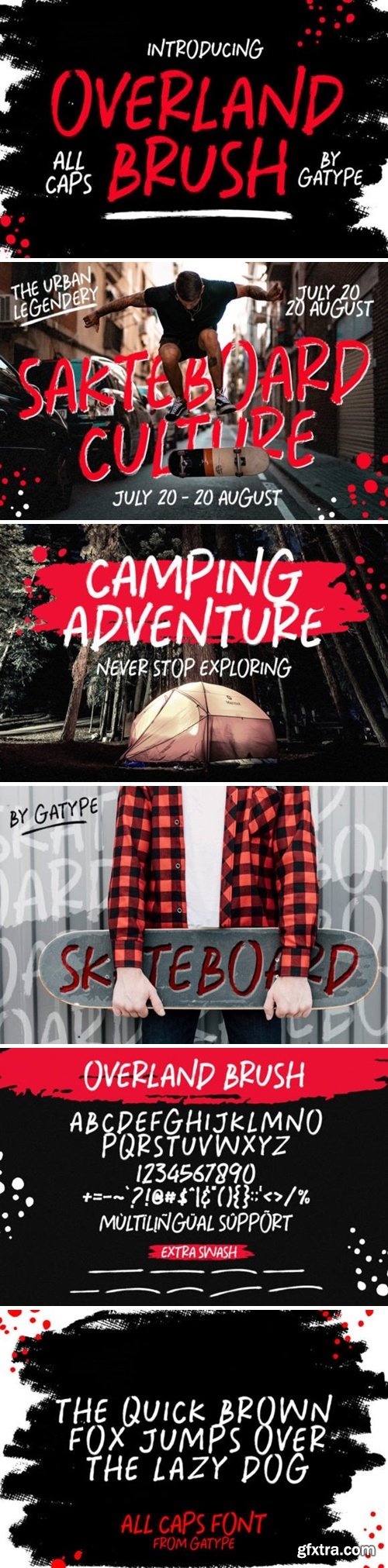
奥兰多刷字体
Overland Brush is a beautiful uppercase display brush font, designed with a modern vibe. This bold brush font is perfect for anything indie, adventurous, and hands-on. Every stroke, and curve is created to create bliss and grace. The Overland Brush is best suited for any design project, such as posters, banners, logos, book covers, album covers, quotes, invitations, greeting cards, business cards, titles, print products, merchandise, social media, etc. Find out more ways to use this font by previewing the font. We hope you enjoy your experience of using our font. Feel free to contact us for further product information or problem complaints. Thank you and happy designing